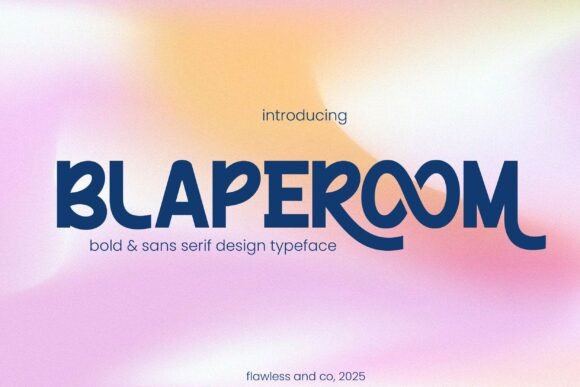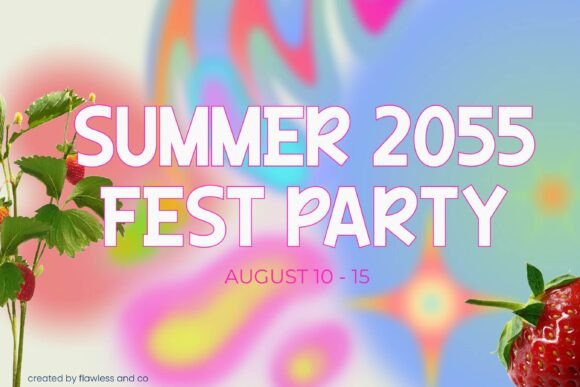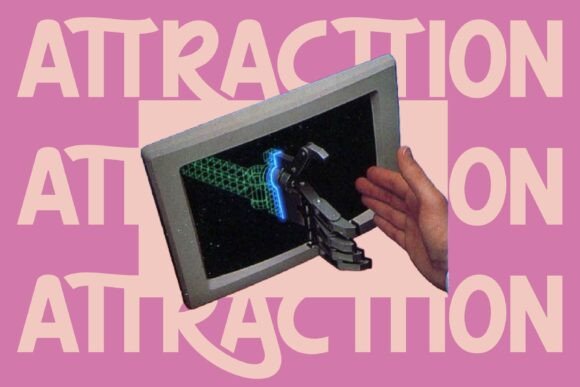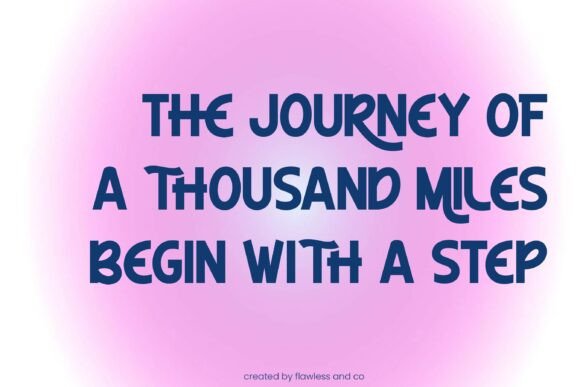
Blaperoom Font: A Bold Sans Serif for Impactful Headlines & Logo Design
About the Blaperoom Font
Meet Blaperoom Font, a stunning font that brings a touch of elegance and professionalism to any design. Blaperoom is a powerful bold sans serif font built to command attention. With its thick strokes, clean lines, and modern geometry, Blaperoom is perfect for impactful headlines, branding, posters, logos, and digital content that needs a confident voice. Its straightforward, no-nonsense style makes it incredibly versatile, delivering clarity and strength across various design applications. Whether used in uppercase for maximum impact or mixed case for versatility, Blaperoom brings boldness and modernity to every project.